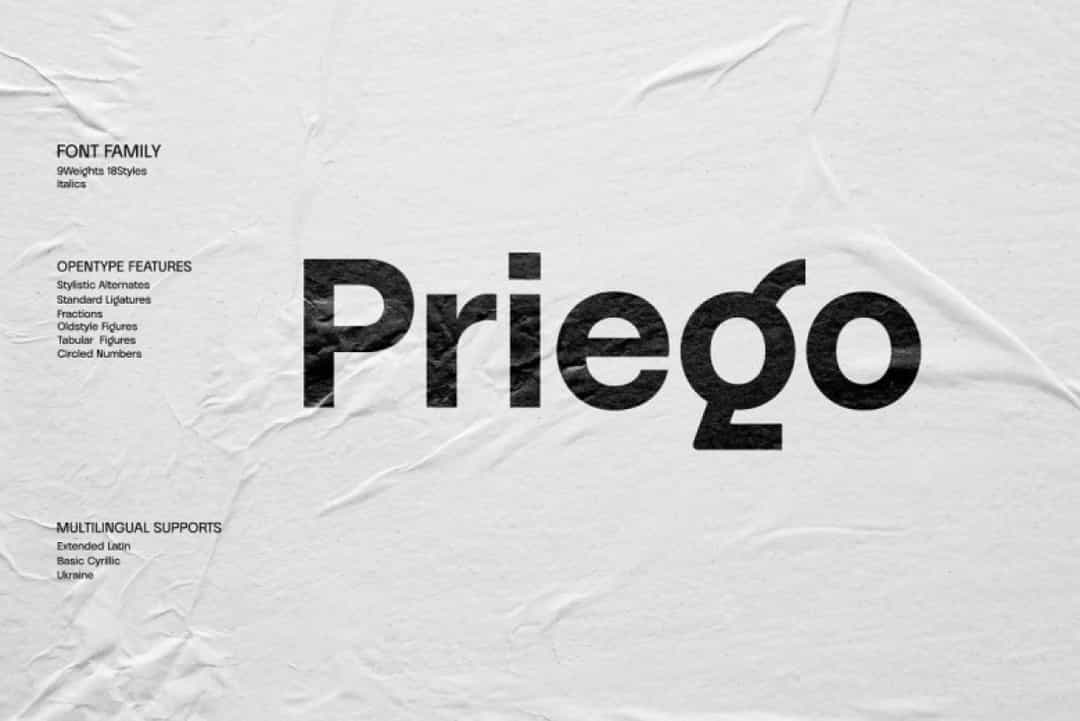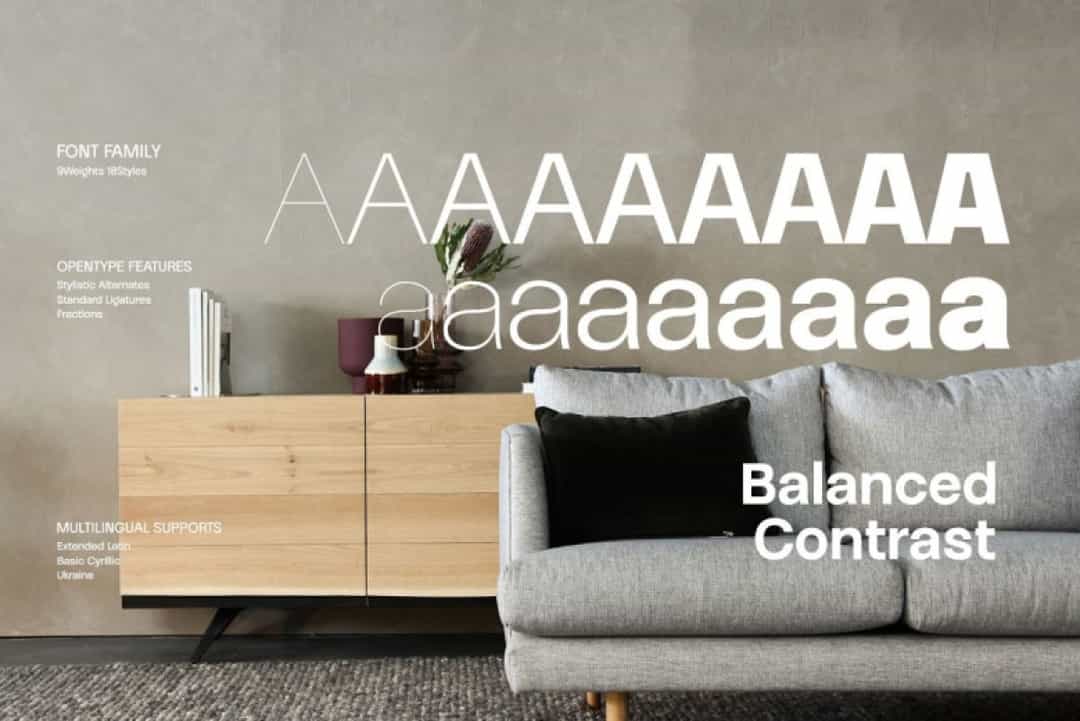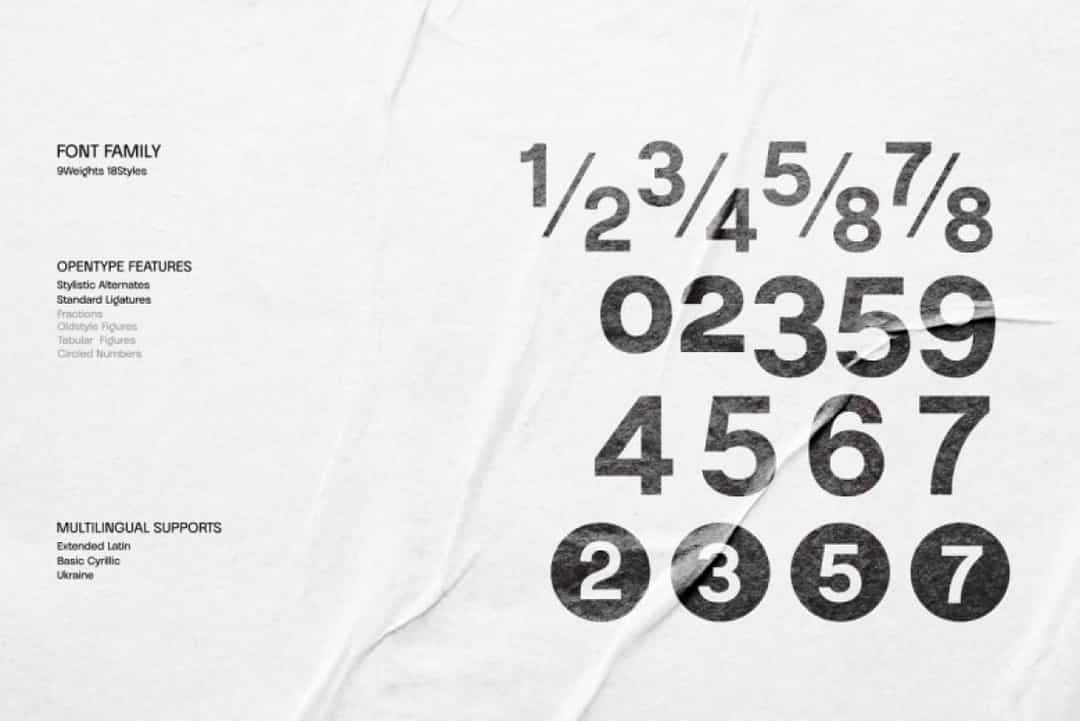
Prego sans-serif font family is designed with an element of play and unstable grotesque in mind, offering clear visibility and balanced contrast as its primary characteristics.